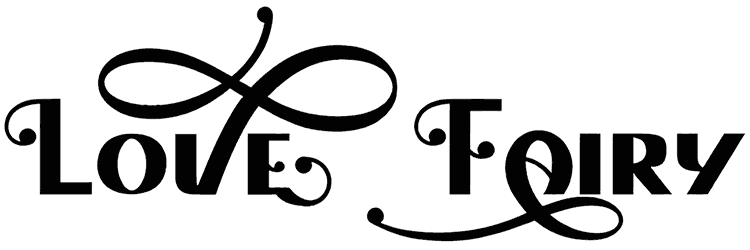
Love Fairy Font
We are bringing you another fancy font today! Love Fairy is adorned with a sans serif style and long curly lines on some of its letters. It will give a modern and serious vibe to your texts.
You can use this swash font for romantic and fantasy books and movie titles, channel banners, personal blogs, and event flyers. The curly look is only seen on its uppercase set, and the font is missing a numeric set.